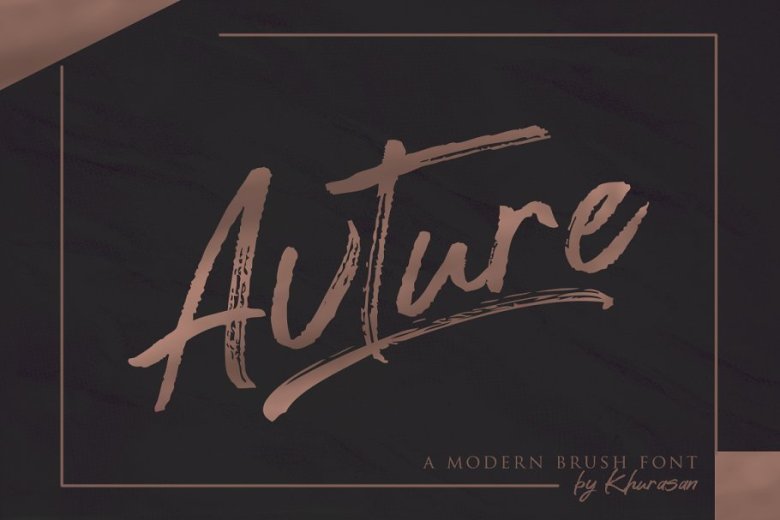
Avture Brush Script Font
vture Brush Script Font is a rough handwritten brush font. It has a natural style which makes it perfect for branding, advertising, poster design, logo, book covers, magazines, packaging, website headers, greeting cards, apparel designs, merchandise, fashion campaigns, newsletters, album covers, and quote designs and more.